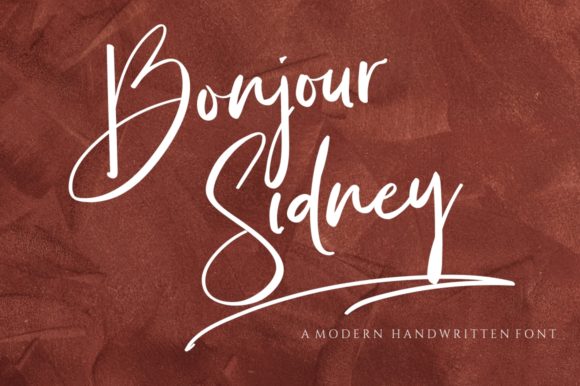
Introducing Bonjour Sidney Font: Elevate Your Designs with Elegance
Are you on the lookout for a font that exudes sophistication and charm? Look no further than Bonjour Sidney Font. This delightful and refined script font is sure to become a staple in your design collection. With its PUA encoding, accessing glyphs and swashes has never been easier. In this article, we’ll dive into the world of Bonjour Sidney Font and explore how it can bring your design ideas to life.
The Beauty of Bonjour Sidney Font
Bonjour Sidney Font is a masterpiece of typographic design. Its elegant script style is perfect for a wide range of design projects, from wedding invitations and branding materials to social media graphics and digital art. The font’s refined lines and curves create a sense of luxury and sophistication, making it ideal for designers who want to add a touch of high-end style to their work.
PUA (Private Use Area) encoding is a feature that sets Bonjour Sidney Font apart from other fonts. PUA encoding allows designers to access a wide range of glyphs and swashes, giving them more creative freedom and flexibility. With PUA encoding, you can easily access alternative characters, ligatures, and swashes, making it simple to customize your text and add a personal touch to your designs.
Features and Benefits of Bonjour Sidney Font
- Elegant Script Style: Bonjour Sidney Font features a beautiful, refined script style that’s perfect for a wide range of design projects.
- PUA Encoding: With PUA encoding, you can easily access glyphs, swashes, and alternative characters, giving you more creative freedom.
- High-Quality Design: The font is designed with high-quality, clean lines and curves, ensuring that your designs look professional and polished.
How to Use Bonjour Sidney Font in Your Designs
Bonjour Sidney Font is versatile and can be used in a variety of design projects. Here are a few ideas to get you started:
- Wedding Invitations: Add a touch of elegance to your wedding invitations with Bonjour Sidney Font.
- Branding Materials: Use Bonjour Sidney Font to create sophisticated branding materials, such as logos, business cards, and letterheads.
- Social Media Graphics: Elevate your social media graphics with Bonjour Sidney Font, perfect for creating eye-catching posts and stories.
- Digital Art: Incorporate Bonjour Sidney Font into your digital art, such as illustrations, watercolor designs, and mixed media projects.
Tips and Tricks for Getting the Most Out of Bonjour Sidney Font
To get the most out of Bonjour Sidney Font, here are a few tips and tricks:
- Experiment with Swashes: Use the font’s swashes to add a personal touch to your designs and create unique text arrangements.
- Mix and Match: Combine Bonjour Sidney Font with other fonts to create interesting and dynamic text combinations.
- Pay Attention to Kerning: Adjust the kerning to ensure that your text looks balanced and visually appealing.
Bonjour Sidney Font is a delightful and refined script font that’s sure to elevate your designs. With its PUA encoding, elegant script style, and high-quality design, it’s the perfect addition to any design project. Whether you’re a seasoned designer or just starting out, Bonjour Sidney Font is a must-have font that will bring your designs to life.